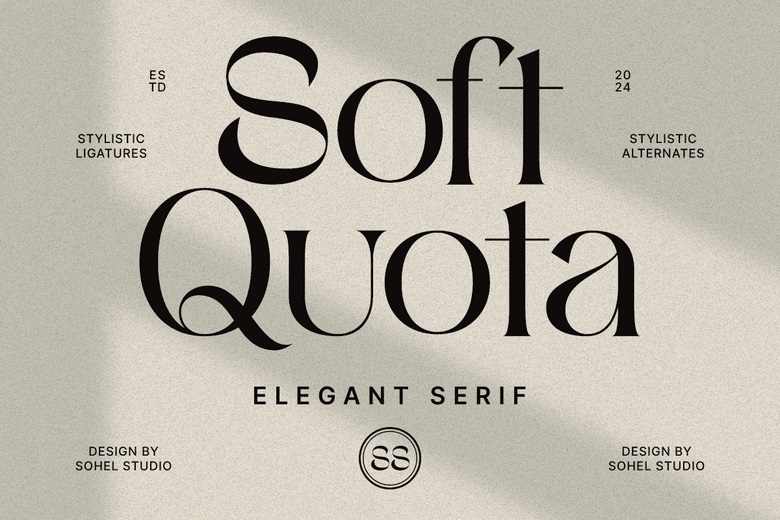
Soft Quota Font
Soft Quota is an amazing serif typeface that is created by Sohel Studio for making it both trendy and timeless. This font has dynamic and delicate lines combining with strong alterations and intricate ligatures for each project.
Soft Quota is great for branding, logos, editorials, wedding invitations, luxury packaging, and so much more. This font is versatile and flexible with multiple language options and is here to help make your design look polished, but unique.
Soft Quota Serif Font